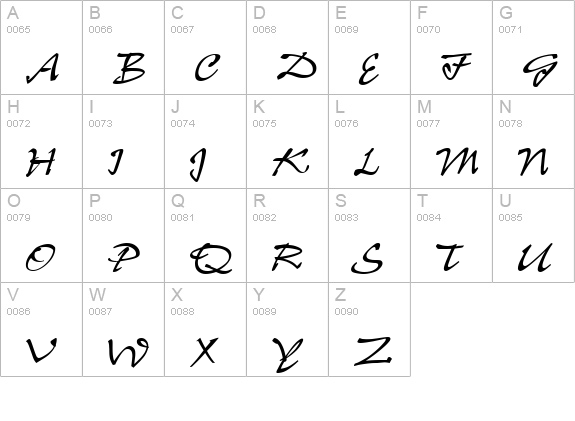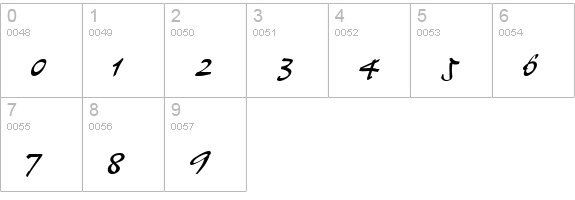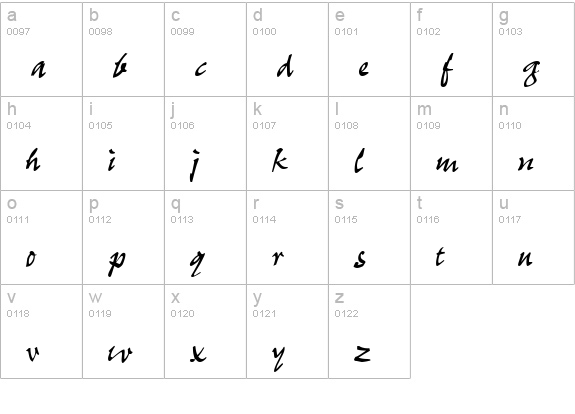
Mythos Font Details
Mythos font is a captivating and versatile typeface that effortlessly merges elegance with a touch of mystique. Its intricate design features intricate swirls and curves, giving it a unique and sophisticated look that is perfect for adding a touch of magic to your projects. This font is available for free download at FontsMarket.com, making it easily accessible for designers looking to add a touch of enchantment to their creations. Whether you are designing a logo, creating invitations, or crafting a poster, Mythos font is sure to leave a lasting impression with its graceful and otherworldly aesthetic. With its timeless appeal and artistic flair, Mythos font is a must-have addition to any designer's toolkit. Download it today and unleash your creativity with this enchanting typeface.